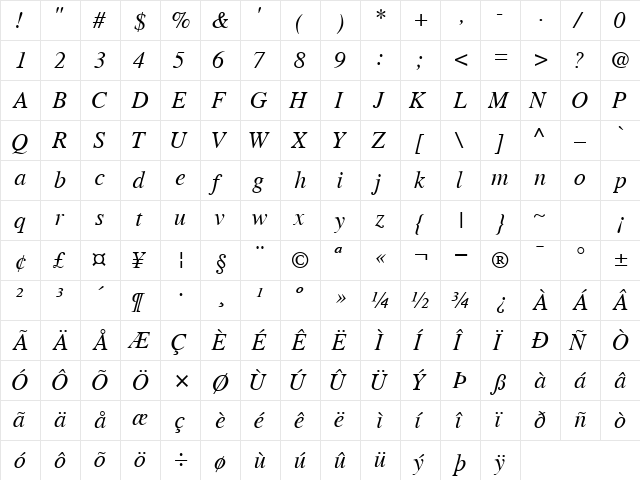
GrecoSSK Italic
Design Context for GrecoSSK Typeface
GrecoSSK is a composed and adaptable typeface that performs quietly and consistently across a wide range of design contexts. The dynamic lean of this cut emphasises speed and emphasis in any layout.
Pro Tip: Try GrecoSSK for annotation and caption copy alongside an upright companion — the contrast in angle creates a dynamic but ordered typographic system.